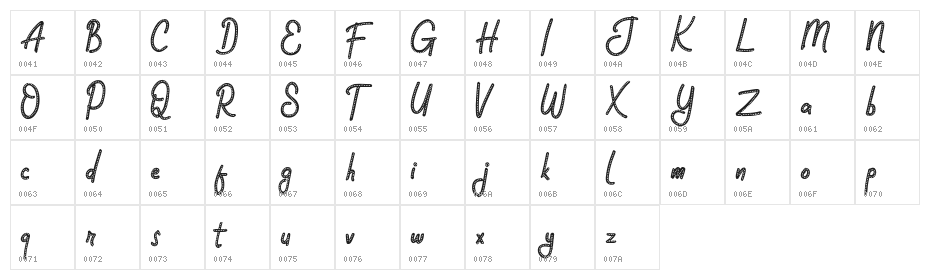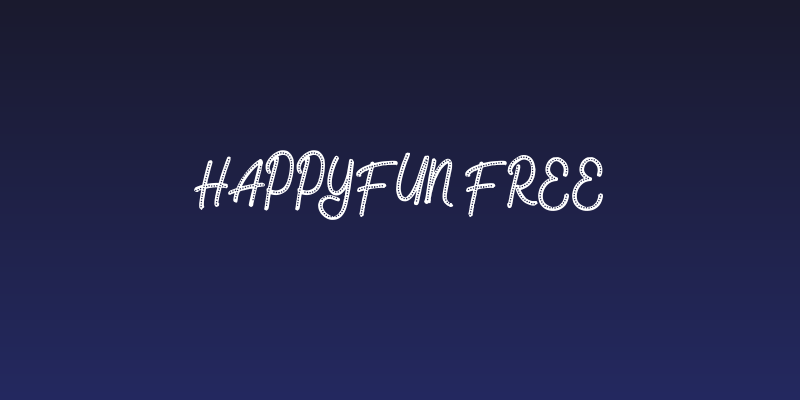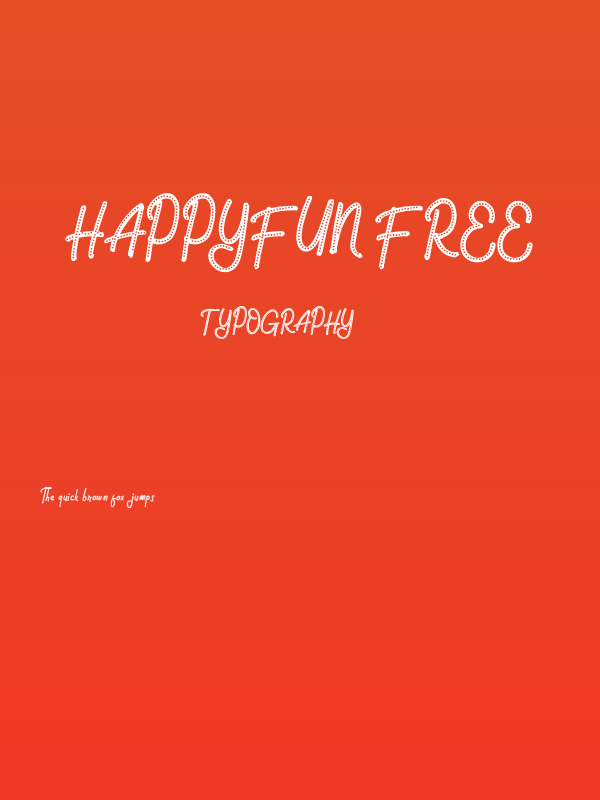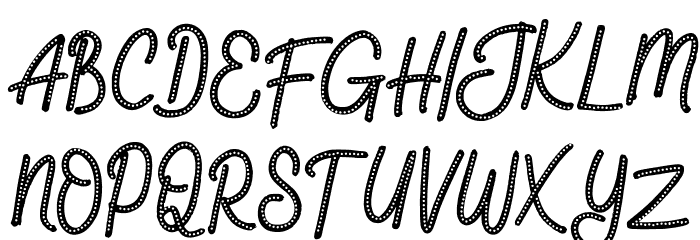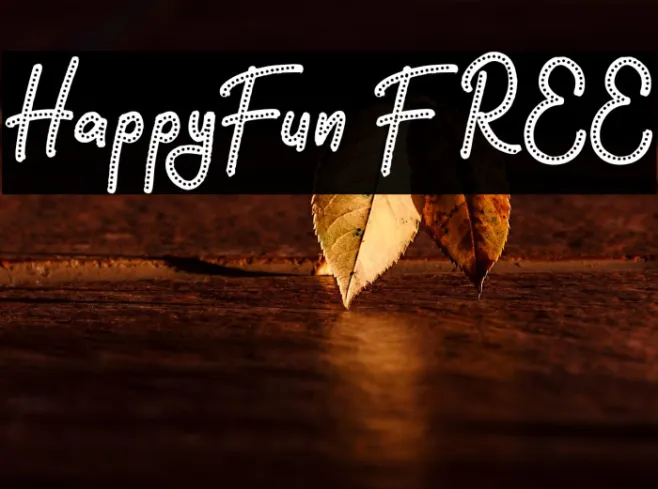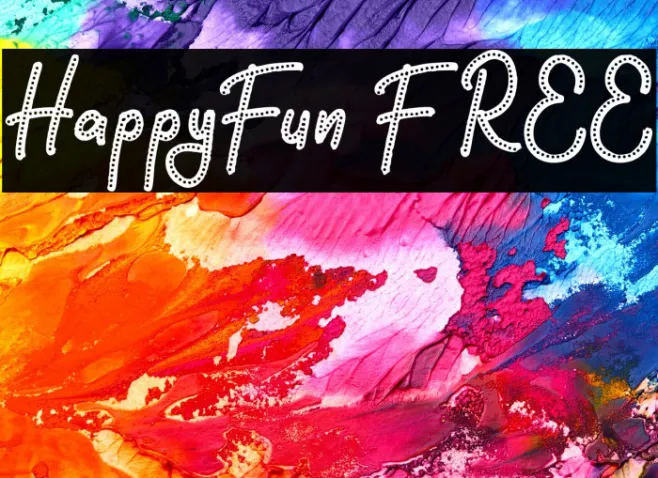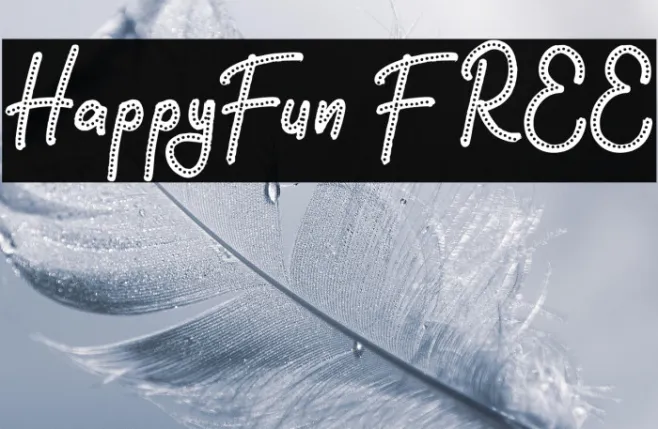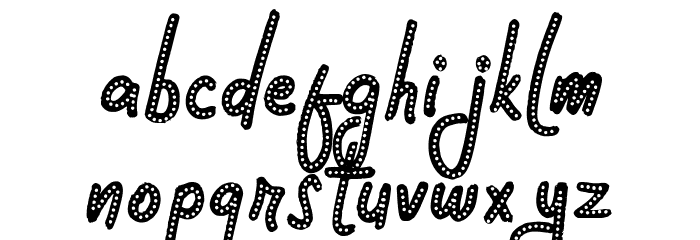
HappyFun FREE Font
HappyFun FREE Description
This playful and whimsical font features a dotted outline style that adds a sense of fun and creativity. The characters are designed with a hand-drawn aesthetic, giving them a casual and friendly appearance. The uppercase and lowercase letters maintain a consistent style, with rounded edges and a slightly irregular baseline, enhancing the informal look. The numbers and special characters are crafted to match the overall playful theme, making this font ideal for projects that require a lighthearted and engaging touch.
HAPPYFUN-FREE UPPERCASE
HAPPYFUN-FREE LOWERCASE
HAPPYFUN-FREE OTHER CHARS
| Proposed Projects | Ideal for children's books, party invitations, playful branding, and creative posters. |